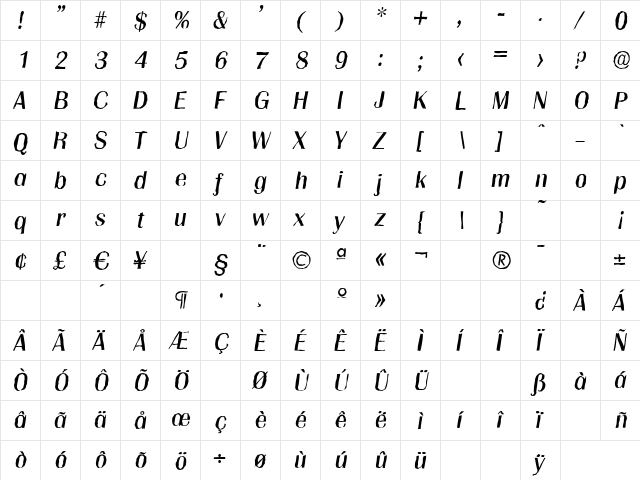
GrenobleAntique Italic
Design Context for GrenobleAntique Typeface
GrenobleAntique wears its vintage influences proudly, with letterforms that recall mid-century signage, classic packaging, and nostalgia-driven design. Its italic angle brings a sense of urgency and motion to the letterforms.
Font Pairing: Combine GrenobleAntique with a simple slab or neutral sans — period-accurate companions reinforce the vintage feel without competing for attention.
Pro Tip: Use GrenobleAntique for headlines and pull quotes rather than body copy — its personality is best appreciated in short, focused bursts.